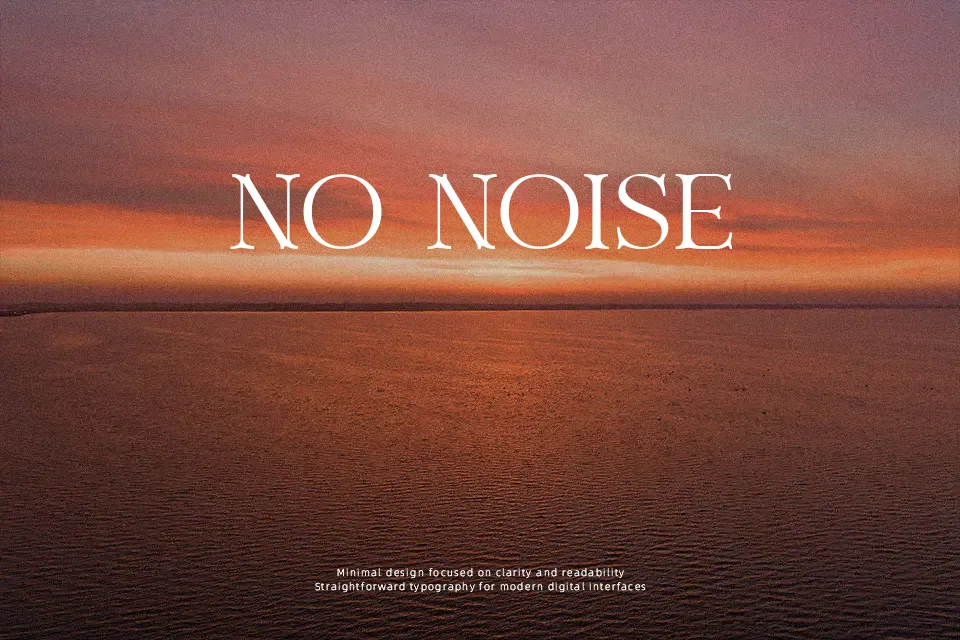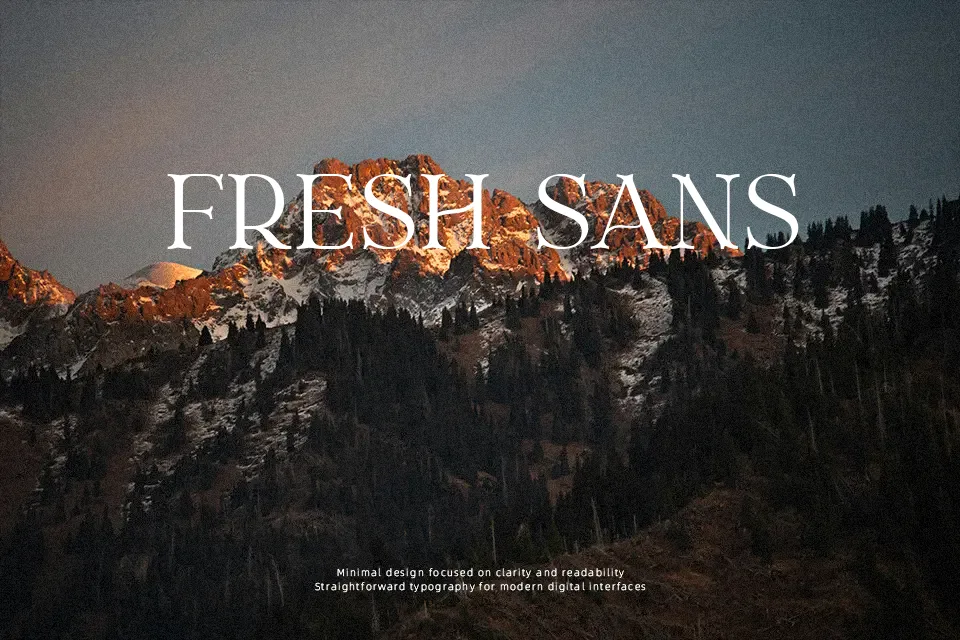
Britanie Font
Designed by UI Creative
Britanie is a display serif built from tall, wide letters with clean vertical strokes and pared-down curves, giving it a vintage–futuristic art deco flavor. The spacing is generous, so words feel airy rather than dense, and the uniform weight keeps the texture calm even in large headlines. It shines on posters, movie titles, album covers, and logo wordmarks where you want a clear message and a bit of theatrical flair. For long paragraphs or very small text it can feel stiff and tiring, so it works best when you treat it as a headline or hero font rather than a workhorse family.
posters and movie titles,album covers and gig flyers,branding for events or venues,headline treatments in editorial layouts
body copy or long-reading text,tiny UI labels or mobile app interfaces,minimalist corporate documents,heavily text-dense layouts
Perfect for branding, film, and headline, with a bold and display style.